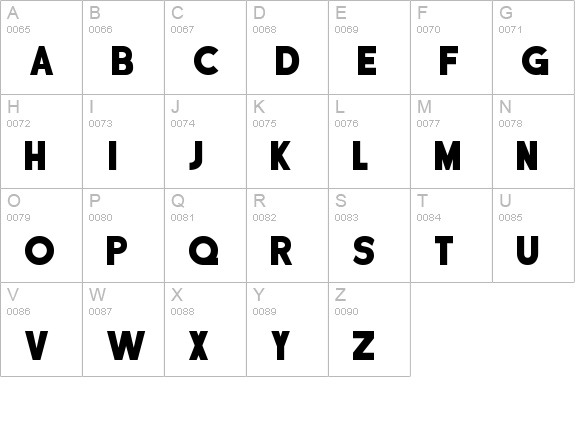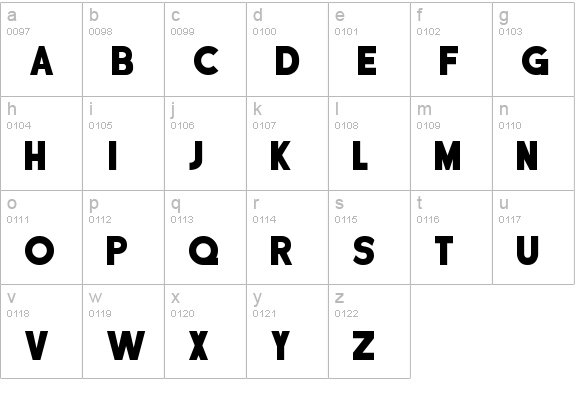
DISCIPLINA PERSONAL USE Font Details
Introducing Disciplina Personal Use, a captivating and versatile font that seamlessly blends sophistication with a modern twist. This exquisite typeface is perfect for adding a touch of elegance to any project, be it personal or professional. With its clean lines and sleek curves, Disciplina Personal Use exudes a sense of poise and refinement, making it the ideal choice for invitations, branding materials, logos, and much more. Its timeless appeal and classic yet contemporary design ensure that your creations will stand out from the crowd and leave a lasting impression. What sets Disciplina Personal Use apart is its incredible versatility. Whether you're aiming for a bold and impactful statement or a subtle and understated look, this font can effortlessly adapt to your needs. Its various weights and styles give you the freedom to experiment and find the perfect balance for your project. But that's not all. We understand the importance of accessibility, which is why Disciplina Personal Use is available for free download at FontsMarket.com. Yes, you read that right – this stunning font can be yours without spending a dime. It's our way of ensuring that creativity knows no boundaries and that everyone has the opportunity to unleash their artistic vision. So go ahead, unleash your creativity with Disciplina Personal Use. Download it today at FontsMarket.com and discover the limitless possibilities that await you. Elevate your designs, captivate your audience, and make a statement that truly reflects your unique style – all with the help of this exceptional font.